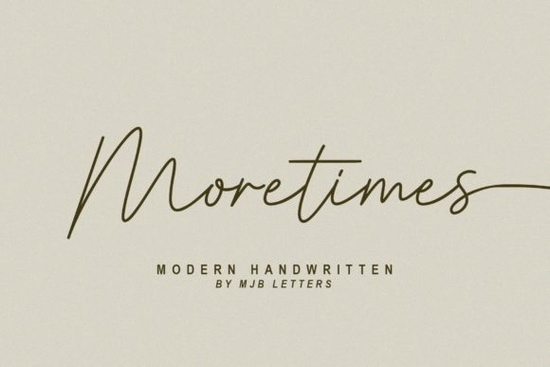
If you’re looking for a handwritten font that feels both modern and effortlessly natural, Moretimes Font might be exactly what your next project needs. It’s got that clean, flowing style that works whether you’re designing wedding invites, branding materials, or even personal quotes for social media. What makes it stand out is how every letter uppercase and lowercase comes with an alternate version. That means you can mix and match to create something that feels uniquely yours.
It’s especially helpful if you’ve ever felt like other script fonts look too repetitive or stiff. With Moretimes, the alternates give your text subtle variations that mimic real handwriting. And because it’s PUA encoded, you don’t need to jump through hoops to access those extra glyphs or swashes they’re built right in and ready to use in most design software.
What kinds of projects work best with this font?
You’ll find Moretimes fits naturally into designs where personality matters. Think:
- Logo design – especially for boutiques, cafes, or handmade brands
- Wedding stationery – invitations, menus, place cards
- Social media quotes – the kind that feel personal and hand-lettered
- Fashion branding – tags, packaging, labels
- Watermarks or signatures – subtle but stylish
If you’ve used fonts like Limon Mint or Mighty Sunday before, you’ll notice Moretimes sits in a similar sweet spot casual enough to feel approachable, but polished enough to look professional.
Don’t feel like you need to use every alternate available. Sometimes less is more. The goal is rhythm, not randomness. If you’re pairing it with another font, try keeping Moretimes as your display text (headings, names, titles) and pair it with a clean sans-serif for body copy. Fonts like Nagita or Amelline also follow this principle they’re designed to shine when used intentionally, not everywhere at once.
How does it compare to other handwritten fonts?
Compared to something like its own category page, Moretimes holds its own by balancing structure and spontaneity. Some script fonts lean too formal; others feel sloppy. This one lands right in the middle legible but expressive, consistent but not robotic.
It’s also lighter in weight than many brush scripts, which makes it more versatile for layering over photos or busy backgrounds. You don’t always need bold strokes to make an impact sometimes elegance speaks louder.
- ✅ Test different letter combinations see how “A” and “a” look with their alternates